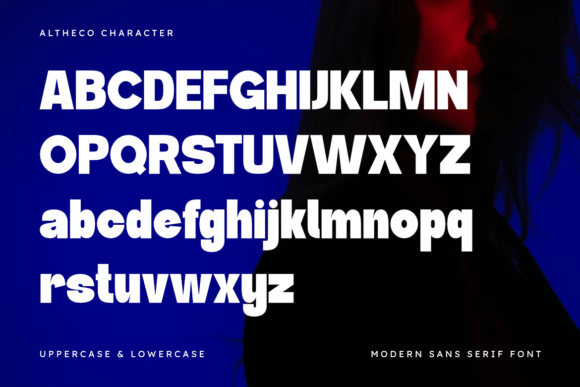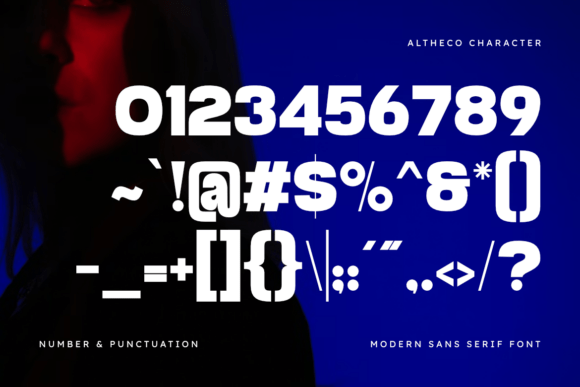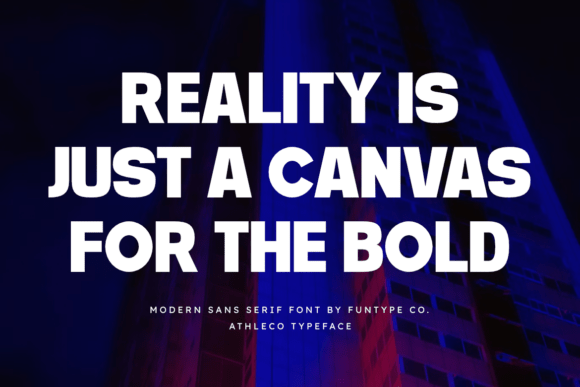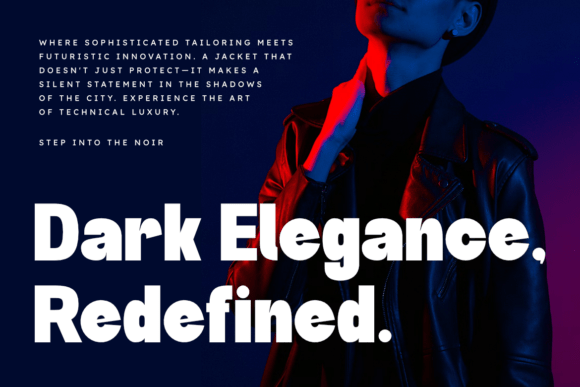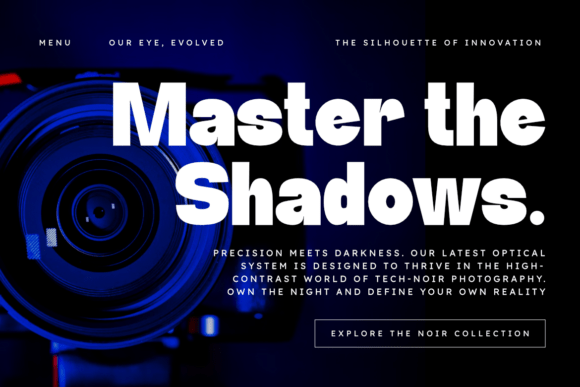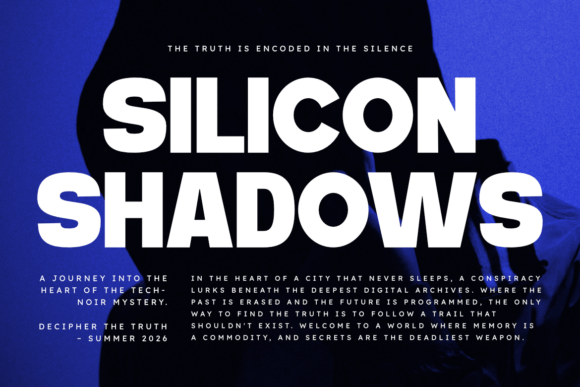
Introducing Altheco Font: Elevate Your Design with Bold Elegance
In the world of typography, a font can make all the difference in capturing the essence of a message. For designers and crafters seeking to make a lasting impression, Altheco Font emerges as a game-changer. This bold and elegant sans serif font is meticulously designed to breathe life into impactful typography, making it the perfect choice for projects that demand a strong visual statement.
The Essence of Altheco Font
Altheco Font boasts a refined structure and clean geometric lines, characteristics that set it apart in the realm of sans serif fonts. Its design is not just about aesthetics; it’s about functionality. The clean and confident look of Altheco gives your visuals a striking and professional appearance, making it an indispensable tool for anyone looking to elevate their design.
One of the standout features of Altheco Font is its versatility. It’s not limited to a single use case but is incredibly adaptable across various design projects. Whether you’re working on:
- Strong Headlines: Altheco’s bold nature makes it perfect for headlines that need to capture attention instantly.
- Modern Posters: Add a touch of elegance and modernity to your posters with Altheco’s clean lines and geometric structure.
- Album Covers: Give your music projects a professional and stylish look that stands out.
- Lifestyle Graphics: Enhance your lifestyle graphics with a font that exudes sophistication and style.
- Branding: Establish a strong brand identity with a font that communicates confidence and elegance.
- High-Impact Advertising: Make your advertisements unforgettable with typography that demands attention.
Why Choose Altheco Font?
Choosing Altheco Font for your projects comes with numerous benefits:
- Unique and Memorable: Stand out in a crowded market with a font that is both unique and memorable.
- Professional Look: Instantly elevate the professionalism of your designs, making them more appealing to your audience.
- Easy to Read: Despite its bold nature, Altheco maintains a high level of readability, ensuring your message is communicated effectively.
- Highly Versatile: Use it across a wide range of projects, from digital content to print materials.
Tips for Using Altheco Font Effectively
To maximize the impact of Altheco Font, consider the following tips:
- Pair with Complementary Fonts: For body text, pair Altheco with a simpler font to maintain readability and create visual hierarchy.
- Experiment with Sizes: Play with different font sizes to create contrast and emphasize key points.
- Utilize Color Wisely: Choose colors that complement the bold and elegant nature of Altheco, enhancing its visual impact.
Altheco Font is more than just a typeface; it’s a design statement. With its bold elegance, clean geometric lines, and versatile nature, it’s an invaluable asset for designers and crafters aiming to create impactful typography. Whether you’re working on a high-profile advertising campaign, a stylish album cover, or a compelling brand identity, Altheco Font is your partner in making a lasting impression. Elevate your design with Altheco and discover a world where typography speaks louder.